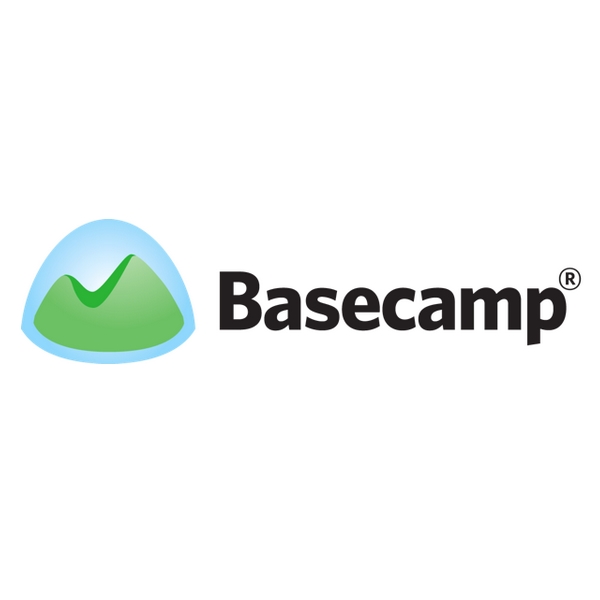
Basecamp Font
The Basecamp logo originally used the Whitney typeface, developed for the Whitney Museum in New York.
The new logo, quietly updated in August 2019, features a simplified icon paired with an updated sans serif typeface, likely Graphik Semi Bold from Commercial Type. More information on the updated typeface can be found here.